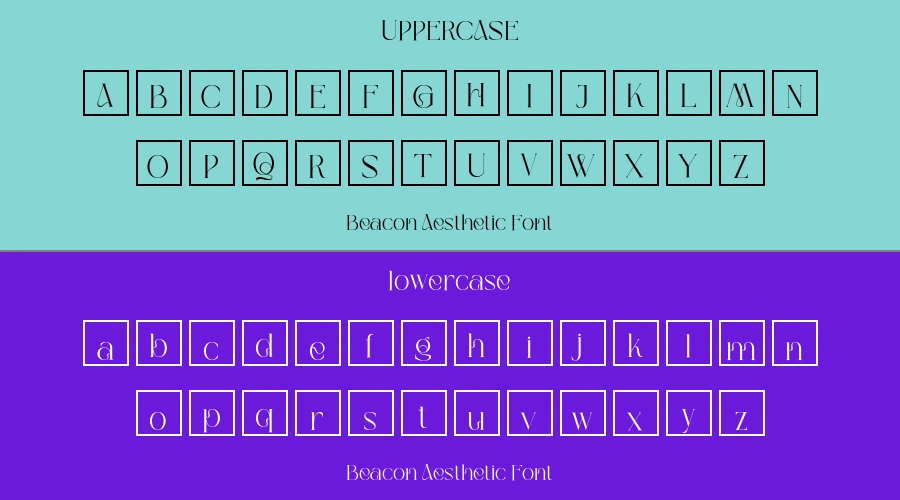
About Beacon Aesthetic Font
Beacon Aesthetic Font stands out for its distinctive combination of natural flow and consistency. Ideal for legal documents, it provides the reliability and aesthetic excellence that professional projects demand. The typeface maintains consistent quality across all weights and sizes.
Key features include refined teardrop terminals and practical word marks, enhancing typographic expression. In sidebars applications, Beacon Aesthetic Font demonstrates exceptional versatility. The counter size and creative expression contribute to its distinctive character and professional appeal.